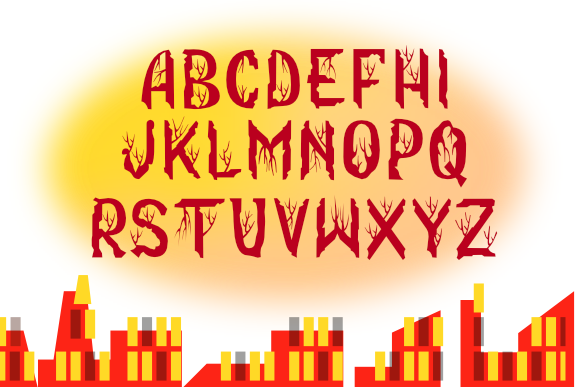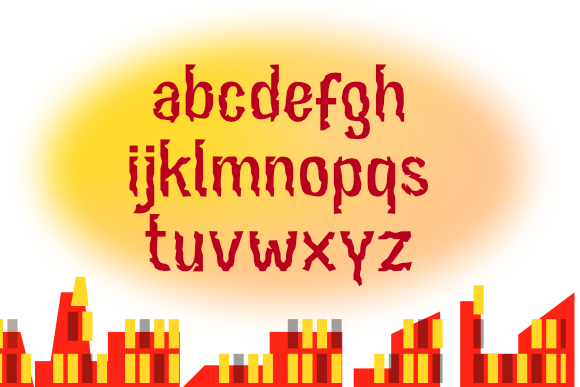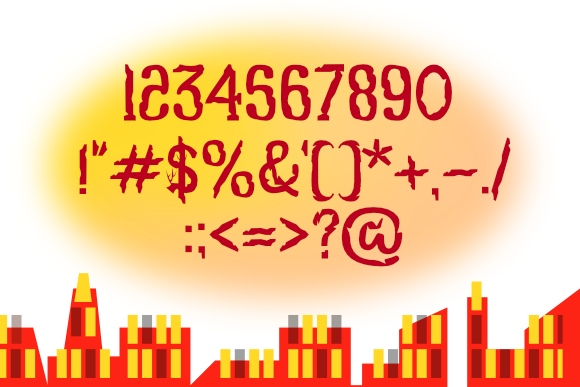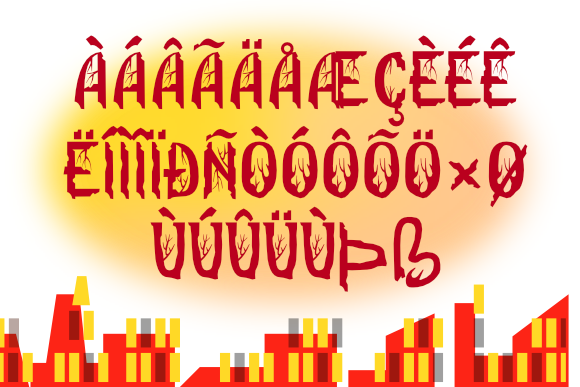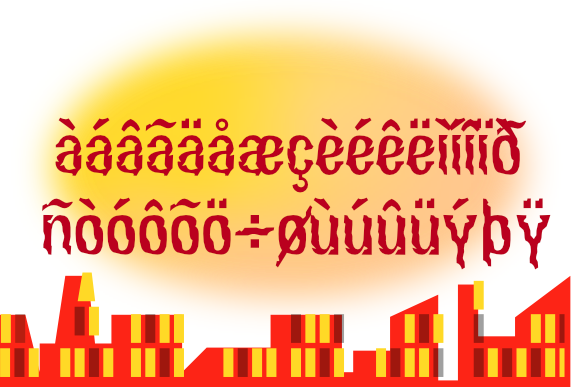
Fyrtez Font: The Ultimate Choice for Spooky Designs
Are you looking for a font that can add a touch of horror and spookiness to your designs? Look no further than Fyrtez Font. This cool decorative font is specifically designed to be combined with horror-themed works, making it the perfect choice for designers and crafters who want to create outstanding Halloween designs, scary movie covers, spooky music albums, and more.
What is Fyrtez Font?
Fyrtez Font is a unique and eye-catching font that is designed to evoke a sense of fear and unease. Its irregular and distressed texture gives it a creepy and abandoned look, making it perfect for horror-themed designs. The font is also highly versatile, making it suitable for use as a display font in a variety of contexts.
Key Features of Fyrtez Font
- Horror-themed design: Fyrtez Font is specifically designed to be used in horror-themed designs, making it perfect for Halloween designs, scary movie covers, and spooky music albums.
- Decorative and display font: The font is highly decorative and can be used as a display font to add a touch of drama and flair to your designs.
- Irregular and distressed texture: The font’s irregular and distressed texture gives it a creepy and abandoned look, making it perfect for horror-themed designs.
- Highly versatile: Fyrtez Font can be used in a variety of contexts, from Halloween designs to scary movie covers and spooky music albums.
Uses of Fyrtez Font
Fyrtez Font can be used in a variety of ways to create outstanding designs. Here are some ideas to get you started:
- Halloween designs: Use Fyrtez Font to create spooky and eye-catching Halloween designs, such as posters, flyers, and social media graphics.
- Scary movie covers: The font is perfect for creating scary movie covers that will grab the attention of horror movie fans.
- Spooky music albums: Use Fyrtez Font to create spooky and eye-catching music album covers that will stand out from the crowd.
- Horror-themed crafts: The font can be used in a variety of horror-themed crafts, such as making spooky signs, decorations, and other creepy crafts.
Why Choose Fyrtez Font?
There are many fonts available that can be used for horror-themed designs, but Fyrtez Font stands out from the crowd. Here are some reasons why you should choose Fyrtez Font:
- Unique design: Fyrtez Font has a unique and eye-catching design that will add a touch of horror and spookiness to your designs.
- High-quality font: The font is high-quality and can be used in a variety of contexts, from print to digital designs.
- Easily readable: Despite its distressed texture, Fyrtez Font is easily readable, making it perfect for use in a variety of designs.
Tips for Using Fyrtez Font
Here are some tips for using Fyrtez Font in your designs:
- Use it sparingly: Fyrtez Font is a bold and eye-catching font, so use it sparingly to avoid overwhelming your design.
- Pair it with other fonts: The font can be paired with other fonts to create a unique and eye-catching design.
- Experiment with colors: Fyrtez Font can be used in a variety of colors to create a unique and eye-catching design.
- Use it in combination with images: The font can be used in combination with images to create a spooky and eye-catching design.
Fyrtez Font is a unique and eye-catching font that is perfect for horror-themed designs. Its irregular and distressed texture gives it a creepy and abandoned look, making it perfect for Halloween designs, scary movie covers, spooky music albums, and more. With its highly versatile design and affordable price, Fyrtez Font is a great choice for designers and crafters who want to create outstanding designs.